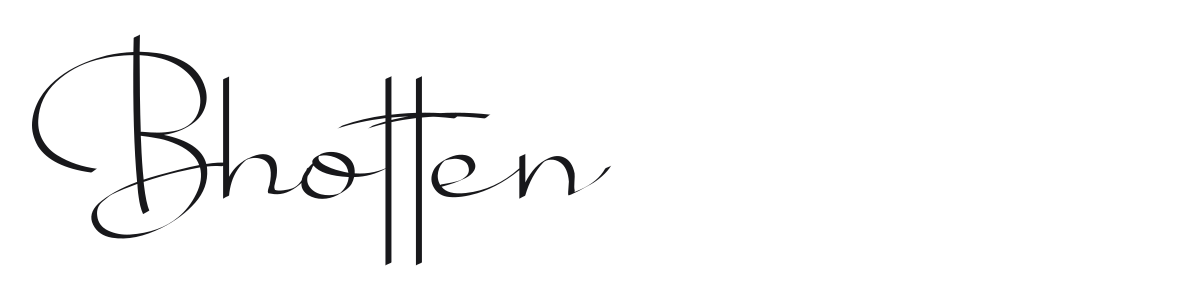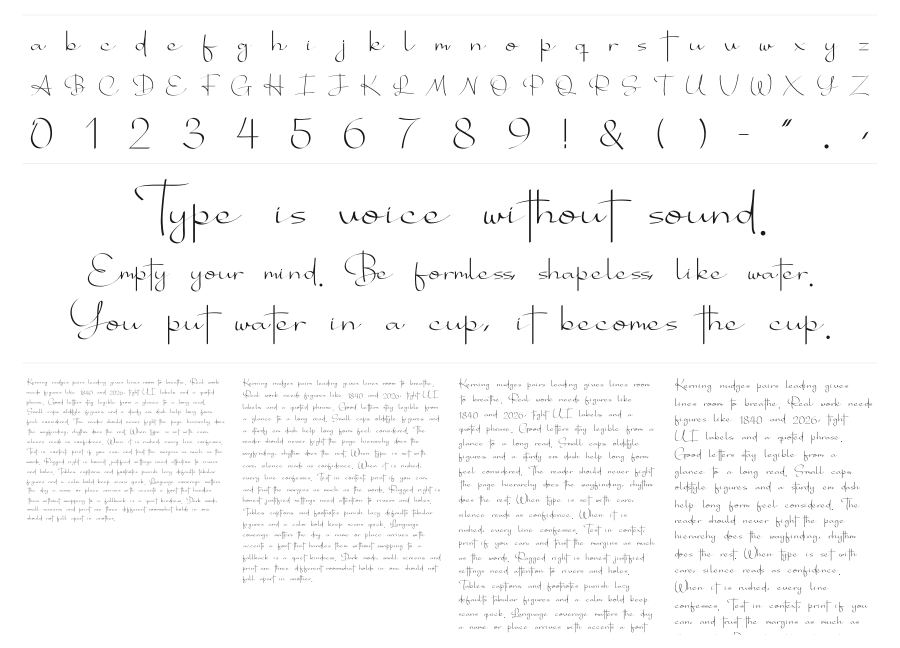
Bhotten
Bhotten is a flowing formal script drawn with the delicacy of copperplate calligraphy, built on extreme stroke contrast between razor-thin hairlines and slightly heavier downstrokes. Long, expressive swashes give the letters a romantic, almost hand-penned quality that suits wedding stationery and luxury branding. It reads best at large sizes where those fine strokes can breathe.